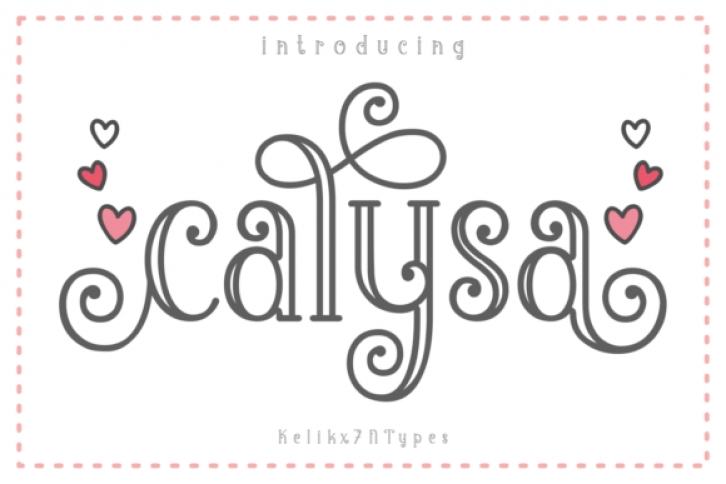
Calysa is an incredibly unique and playful display font. It looks stunning on wedding invitations, thank you cards, quotes, greeting cards, logos, business cards and every other design which needs a handwritten touch.